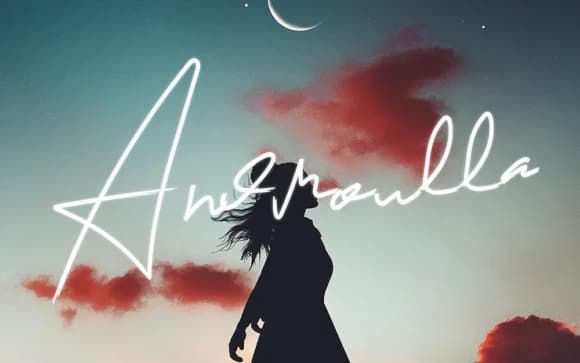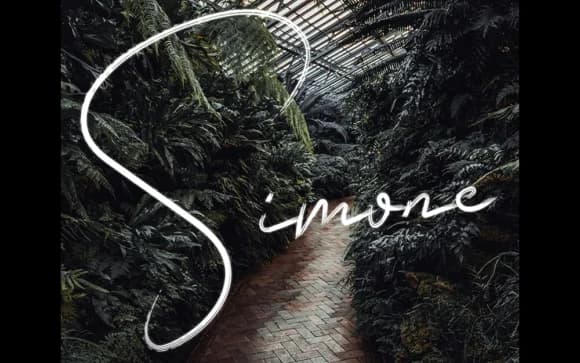
1 / 9About Simone Font
Simone, designed by edinsartstudio, captures the spontaneous energy of brush lettering with flowing strokes that dance across the baseline. The swashes and alternate letterforms give you multiple layers of personality to work with, letting each letter feel distinct without sacrificing readability.
This script thrives on wedding invitation suites where you need elegance paired with organic movement. Boutique skincare and cosmetics labels, artisan food packaging, and handmade goods all benefit from its warmth and authentic character. Look to it for social media stories that need character beyond standard sans-serifs, vintage-inspired posters for galleries or market events, and DIY craft projects where handwritten texture actually communicates something genuine about the maker. The swashes give you the ability to add breathing room to tighter layouts, or you can use the standard form for something more controlled and clean depending on what each project calls for.
The beauty of Simone is how it bridges two worlds: it has the genuine feel of hand-lettering but enough structure to work reliably at small sizes and in body copy situations. You're not trapped between authentic or usable. Pick it up on Creative Fabrica and start layering in that rich handmade quality your designs deserve.
Simone Font is a script font that shines as a display or heading face. Pair it with a clean sans-serif or serif font for body text β the contrast creates a clear hierarchy while the two styles stay balanced and easy to read.